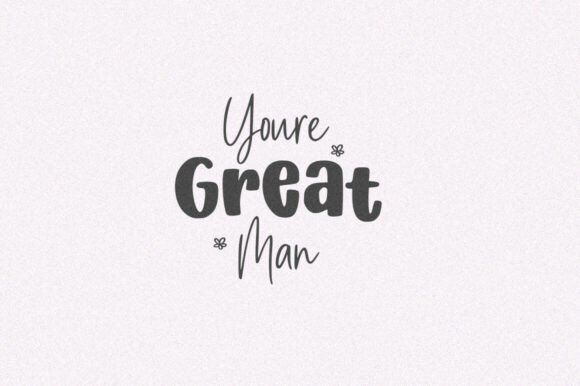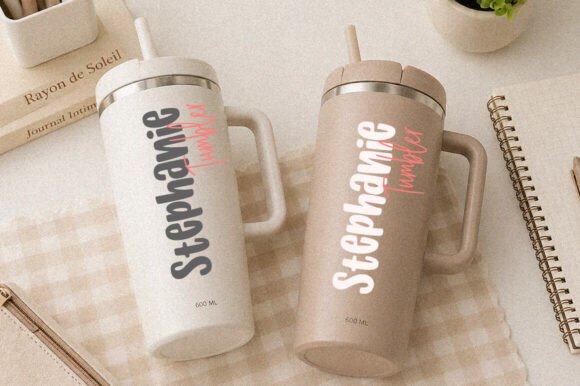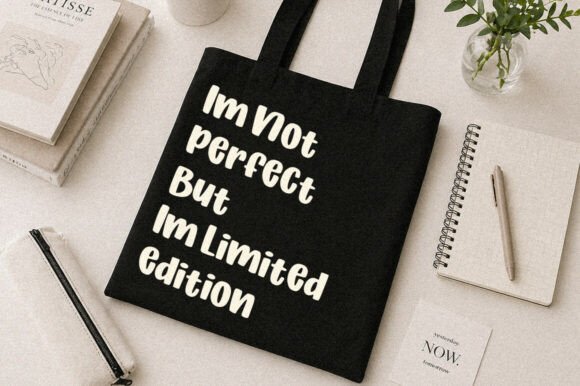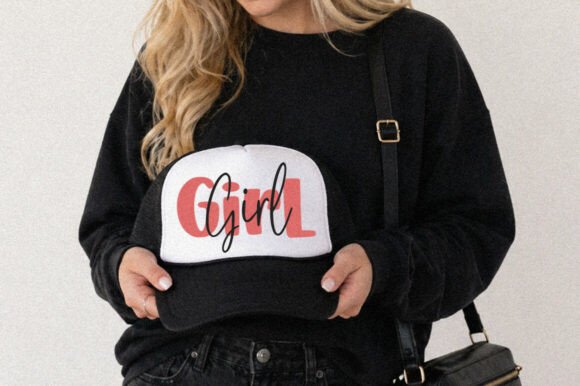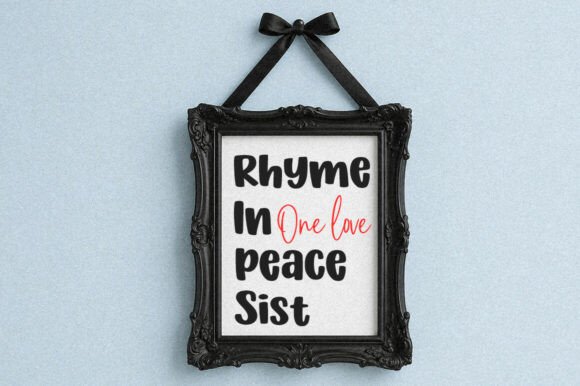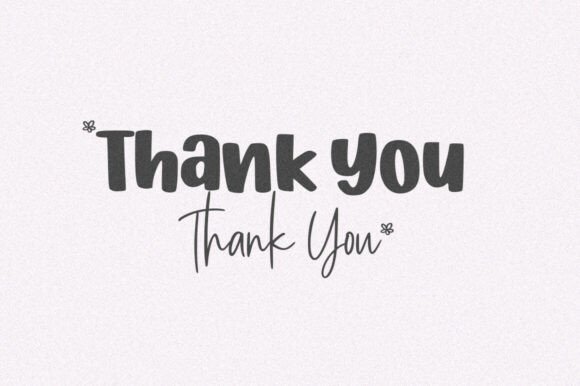
Introducing Annabelle Font: The Perfect Harmony of Bold and Elegant
Are you tired of using the same old fonts in your designs? Look no further than Annabelle Font, a beautifully handcrafted font duo that combines a bold display style with an elegant handwritten script. This perfectly balanced family is inspired by natural hand strokes, delivering an artistic, expressive, and authentic feel that adds personality to every design.
The Display Font: Strong and Eye-Catching
The display font in Annabelle is designed to make a statement. With strong and eye-catching letterforms, it features a modern handcrafted touch that adds a unique flair to any design. The bold and confident style of this font is perfect for headlines, titles, and any other element that needs to grab attention. The carefully crafted letterforms are designed to capture the beauty of real hand lettering, giving your designs a warm and artistic appearance.
The Script Font: Elegant and Organic
The script font in Annabelle is the perfect complement to the bold display font. With its smooth flow and organic curves, it features a natural brush-like movement that adds an elegant touch to any design. The script font is designed to flow smoothly, creating a harmonious combination with the display font that is both stylish and versatile. Whether you’re creating a logo, invitation, or social media post, the script font in Annabelle is sure to add a touch of sophistication and elegance.
A Perfectly Balanced Font Duo
What sets Annabelle apart from other font duos is its perfect balance of bold and elegant. The combination of the display font and script font creates a unique and harmonious pairing that is sure to elevate your designs. Whether you’re a designer, craftor, or DIY enthusiast, Annabelle Font is the perfect choice for anyone looking to add a touch of personality and style to their work.
Uses for Annabelle Font
Annabelle Font is incredibly versatile and can be used in a variety of design projects, including:
- Branding and logos: Create a unique and memorable brand identity with Annabelle’s bold and elegant font duo.
- Packaging: Add a touch of personality and style to your product packaging with Annabelle’s eye-catching letterforms.
- Social media: Elevate your social media posts with Annabelle’s elegant script font and bold display font.
- Invitations: Create beautiful and unique invitations with Annabelle’s smooth and flowing script font.
- Posters and quotes: Add a touch of artistic flair to your posters and quotes with Annabelle’s bold and eye-catching letterforms.
- Creative projects: Whether you’re working on a DIY project or a creative endeavor, Annabelle Font is the perfect choice for adding a touch of personality and style.
Why Choose Annabelle Font?
- Unique and handcrafted: Annabelle Font is carefully crafted to capture the beauty of real hand lettering, giving your designs a unique and authentic feel.
- Versatile: With its bold display font and elegant script font, Annabelle is perfect for a wide range of design projects.
- High-quality: Annabelle Font is designed to deliver high-quality results, with clear and crisp letterforms that will look great in any design.